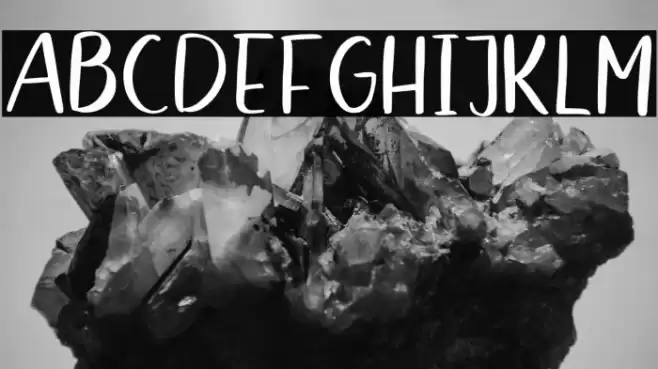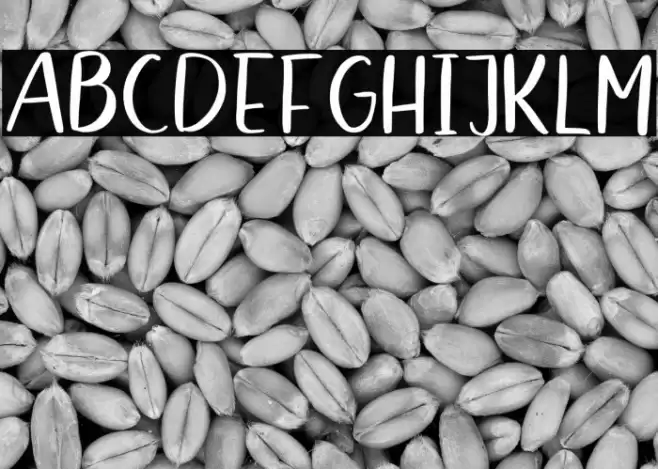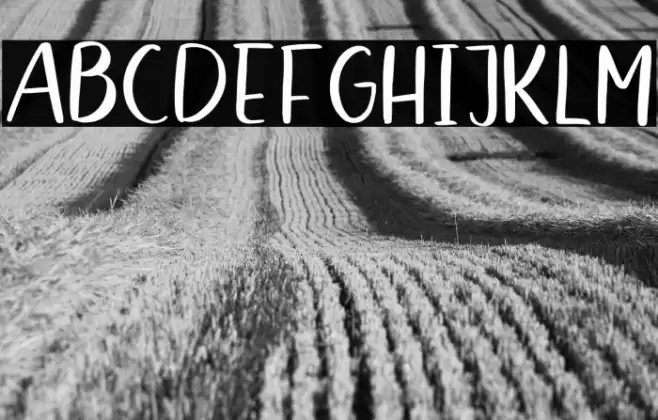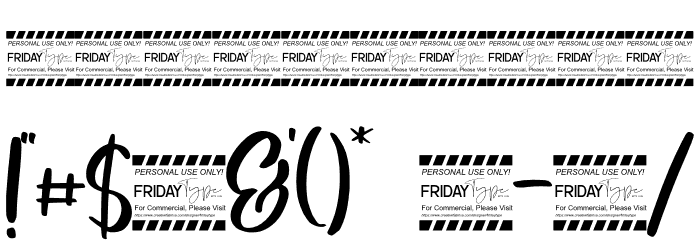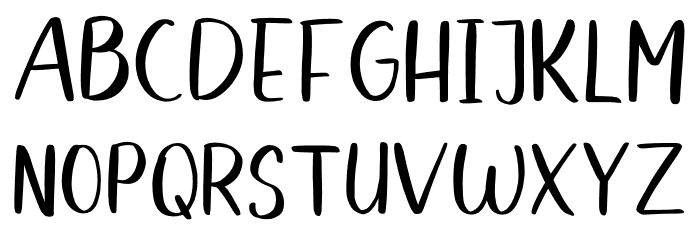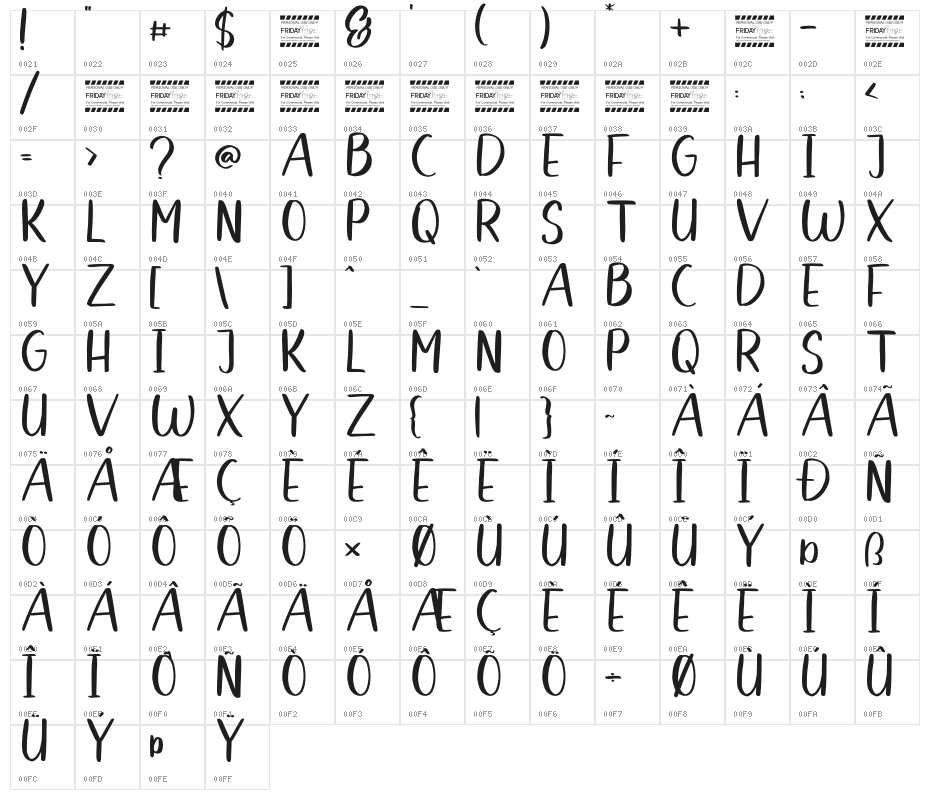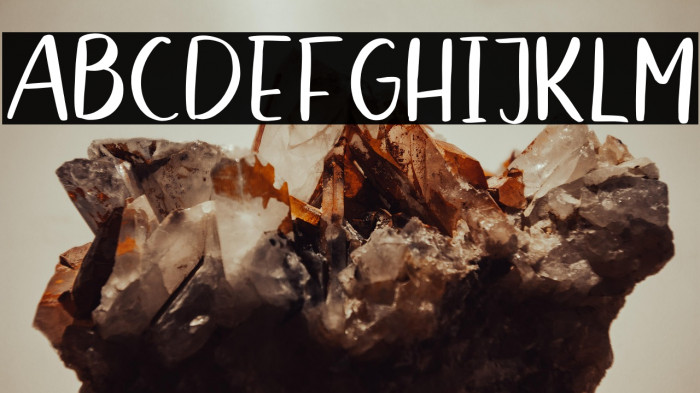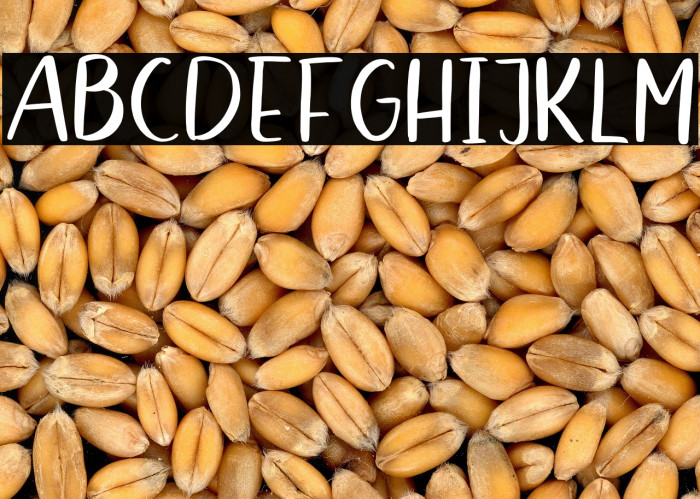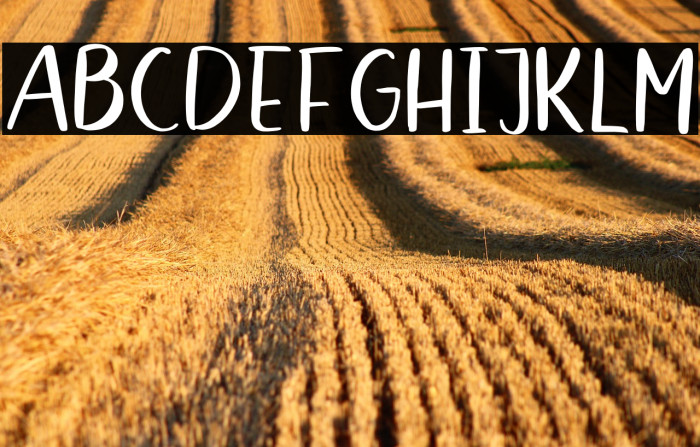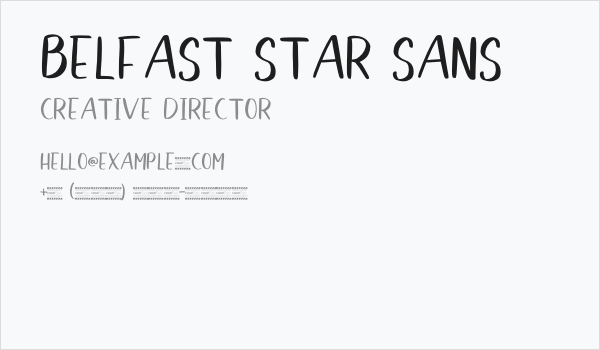
Belfast Star Sans Font
Belfast Star Sans Description
This font features a playful and casual handwritten style, characterized by its smooth curves and slightly irregular strokes. The uppercase letters are bold and dynamic, while the lowercase letters maintain a consistent flow, adding to the font's approachable feel. The numerals and special characters are crafted with the same lively energy, making them suitable for a variety of creative applications. The overall appearance is friendly and informal, perfect for projects that require a personal touch.
A playful, handwritten font with smooth curves and dynamic strokes from Uncategorized fonts.
- Font: Belfast Star Sans
- Proposed Projects: Ideal for greeting cards, invitations, posters, and branding that requires a personal and friendly touch.
- Overall Style: Casual, Playful
- Use Case: Headlines, Logos, Invitations
Belfast Star Sans UPPERCASE
Belfast Star Sans LOWERCASE
Belfast Star Sans OTHER CHARS